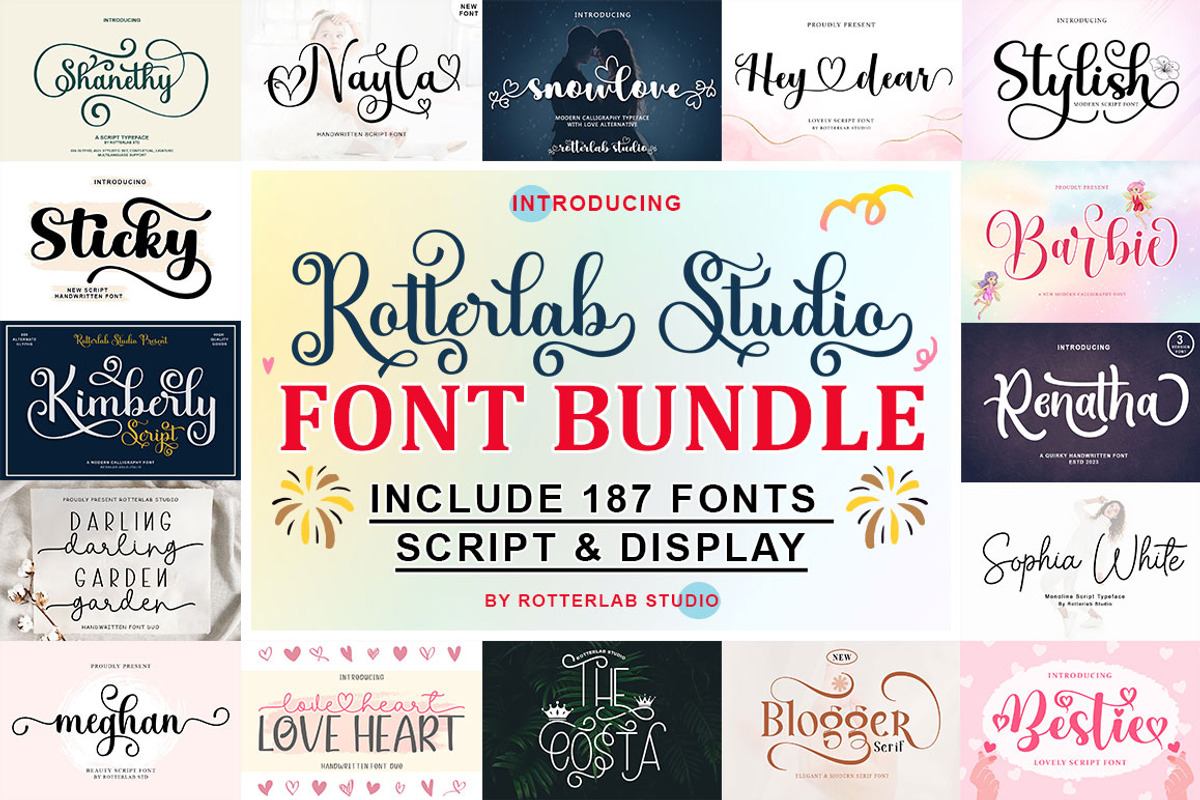
Rotterlab Studio Font Bundle Free Download is a comprehensive collection of carefully crafted fonts designed to elevate your creative projects. With a mix of modern, vintage, and handwritten styles, this bundle includes multiple typefaces that are perfect for branding, packaging, websites, logos, social media, and more.
Whether you're working on a contemporary design or creating a retro-inspired look, Rotterlab Studio provides versatile options that can bring your ideas to life. The fonts in this bundle offer unique personalities that can be seamlessly paired or used independently, ensuring your designs stand out.